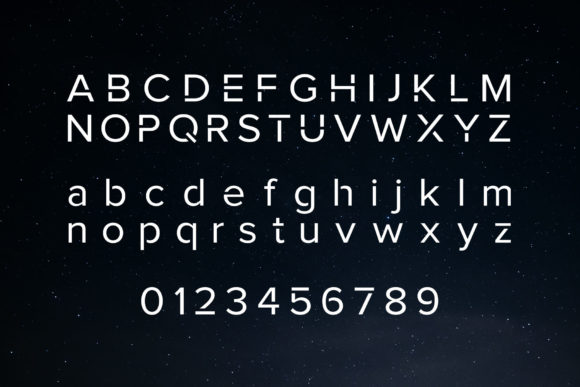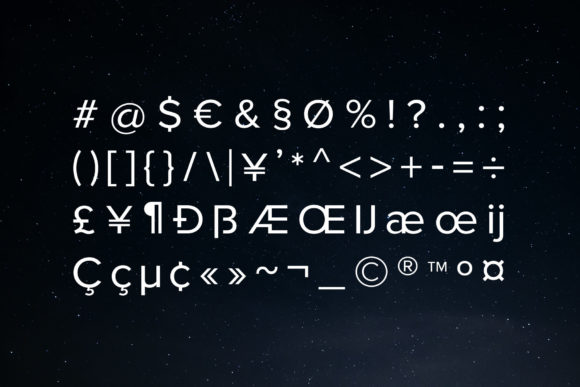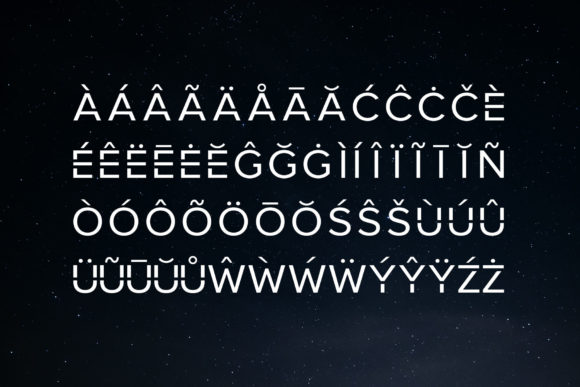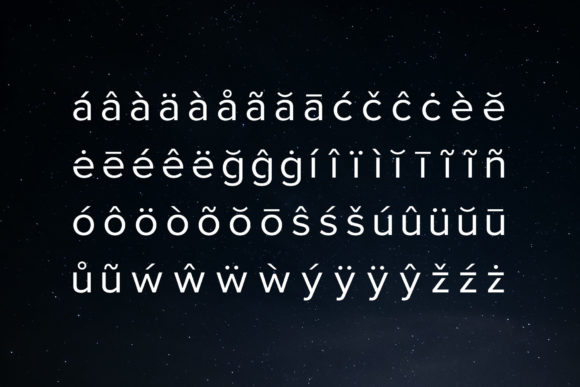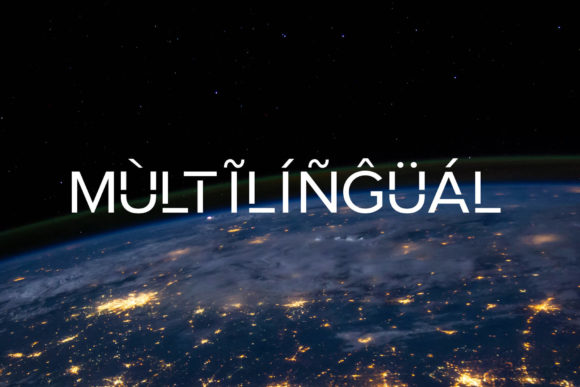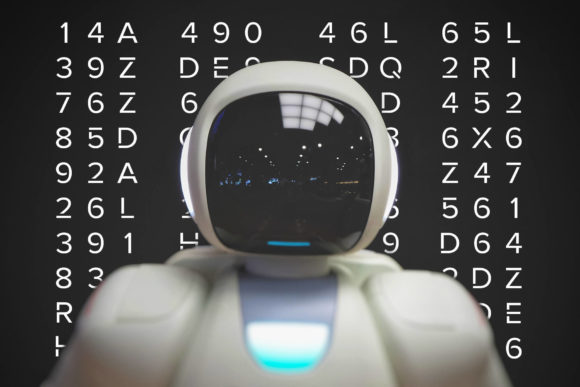
Discover the Robota Font: A Game-Changer for Designers
Imagine you’re working on a creative project, and you need the perfect font to give it that futuristic edge. You scroll through your design resources, searching for something that stands out from the crowd. And then, you stumble upon it – the Robota Font. Its sleek, modern design is the perfect addition to any project, from sci-fi concepts to minimalist interfaces.
But what makes the Robota Font so valuable for designers? Its unique blend of clean lines and futuristic flair makes it a versatile choice for a wide range of creative projects. Whether you’re looking for a free download or a high-quality font for a commercial project, the Robota Font is an excellent choice. With its transparent background and high-quality design, it’s the perfect resource for designers who want to take their work to the next level.
Key Features of Robota Font
- Features a unique robotic theme with a futuristic aesthetic, perfect for sci-fi and tech-related designs.
Honest Review: Robota Font
I recently came across the Robota Font, and I must say it’s a great addition to any designer’s arsenal. As a design resource, it’s perfect for anyone looking to add a unique touch to their creative project.
One of the standout features of the Robota Font is its high-quality design. The font is well-crafted and has a lot of character, making it perfect for use in a variety of settings, from logos to typography-heavy designs. I particularly like how it can be used with a transparent background, adding an extra layer of depth to any design.
Here are some of the things that work well with the Robota Font:
- High-quality design that’s perfect for logos and typography-heavy designs
- Can be used with a transparent background for added depth
- Great for use in creative projects where a unique font is needed
As for limitations, I would say that the Robota Font is best suited for use in digital designs. While it can be used in print, the font may not be as effective in certain situations, such as small font sizes or text-heavy documents.
⚠️ Some users may find the font difficult to read in certain situations, such as small font sizes or text-heavy documents.
Overall, I’m really impressed with the Robota Font and would highly recommend it to any designer looking for a unique and high-quality font.
The Robota Font is a versatile design resource that can be downloaded for free. Its high-quality design makes it perfect for creative projects that require a futuristic and industrial look.
To get the most out of the Robota Font, use it with a transparent background to create a clean and modern design. You can also experiment with different font sizes and colors to create a unique and eye-catching look.
The Robota Font is commonly used in design projects that require a futuristic and industrial look, such as sci-fi movies, video games, and futuristic architecture designs. It can also be used in branding and marketing materials, such as logos and business cards.